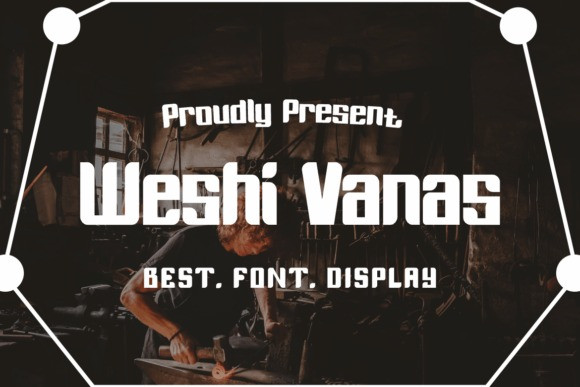
Weshi Vanas Font
Weshi Vanas Font is a bold and authentic display font. The font is suitable for any branding project like logo, t-shirt printing, esports, and many more. It will look outstanding in a wide range of contexts.